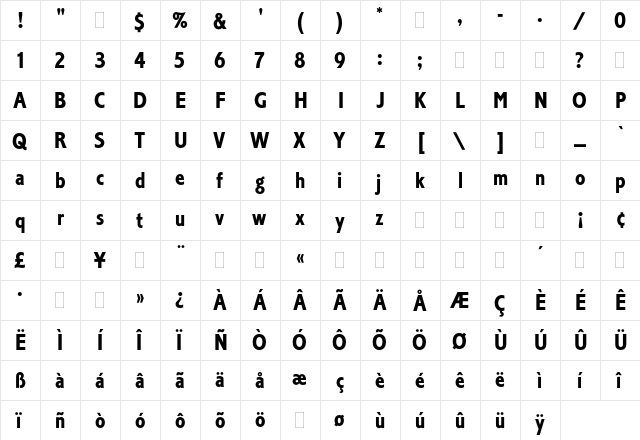
Corinthian Bold Condensed Plain Font Preview
Design Context for Corinthian Bold Condensed Typeface
Corinthian Bold Condensed offers clean, dependable letterforms without strong stylistic allegiance, making it a practical choice for designers who need flexibility. The heavy weight commands attention and anchors typographic hierarchies. The condensed width makes it efficient for tight spaces without sacrificing legibility.